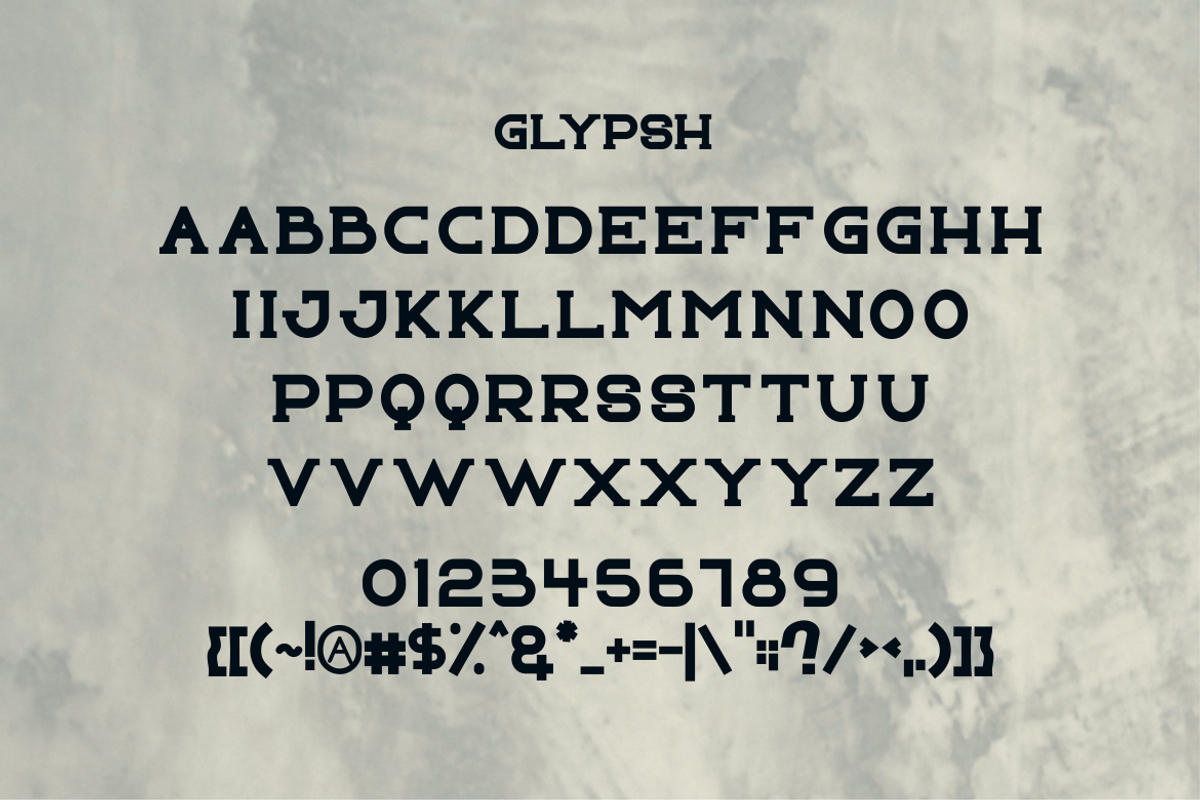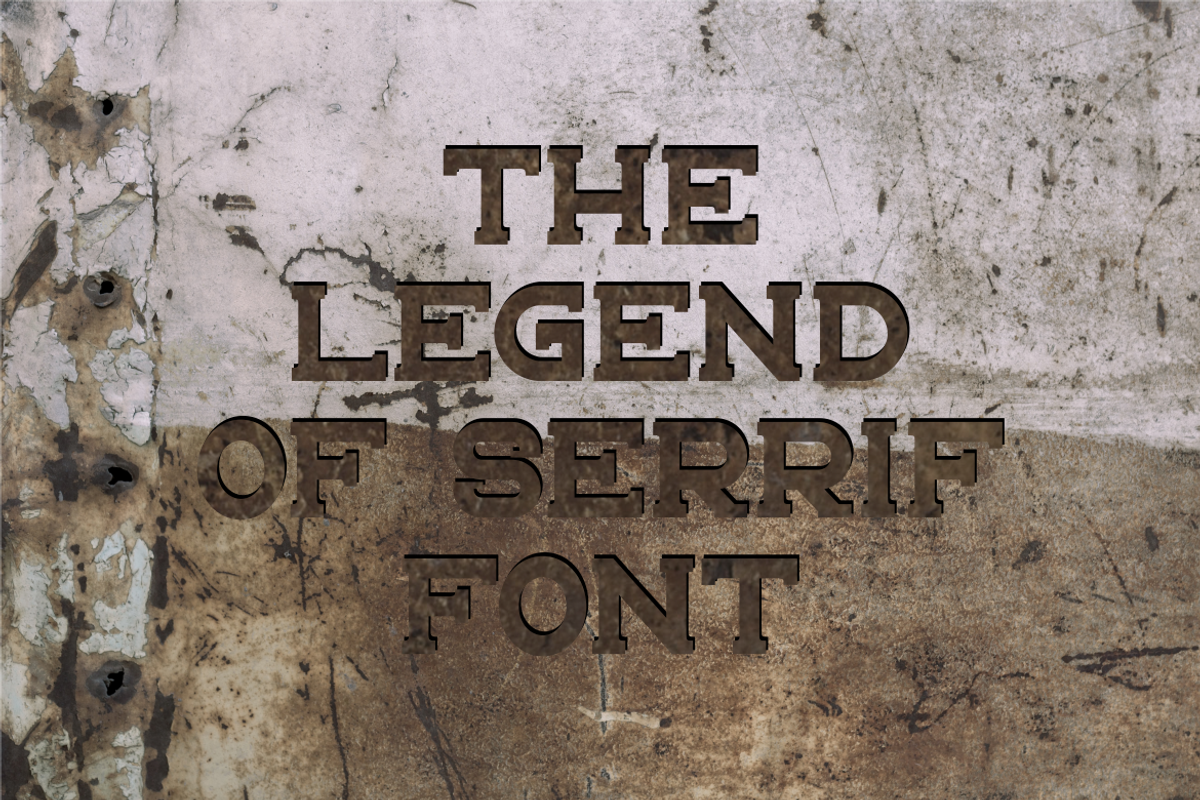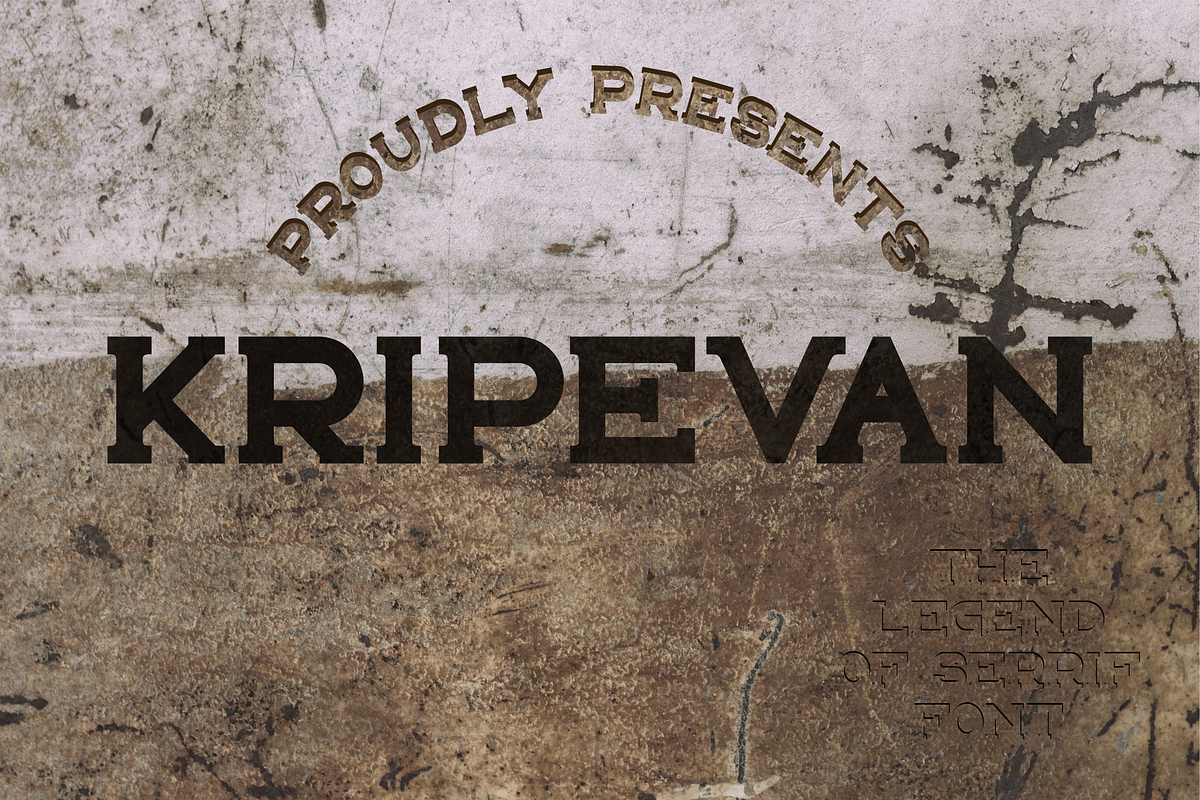
Krypevan Font
Krypevan Font It has a elegant, classy look and modern. It’s a great font for fashion, apparel projects, signature, album cover, logo, branding, magazine, social media, & advertisements, but also works great for other projects.